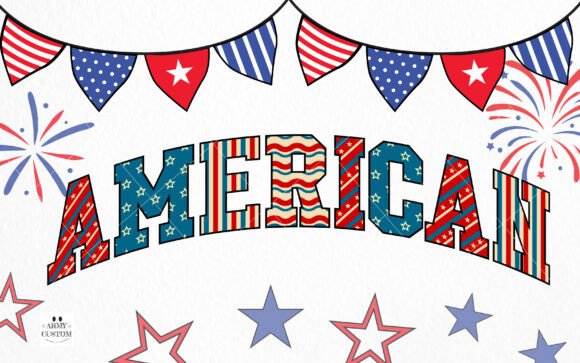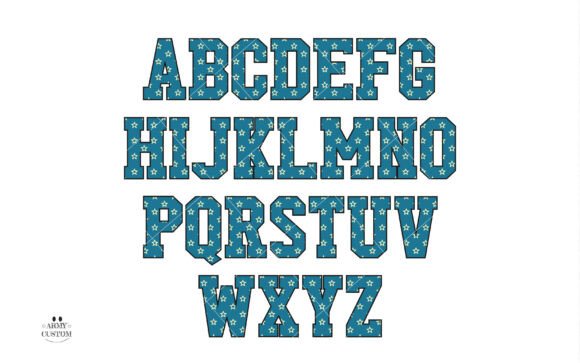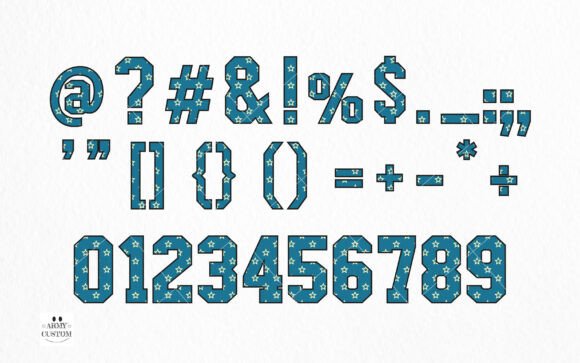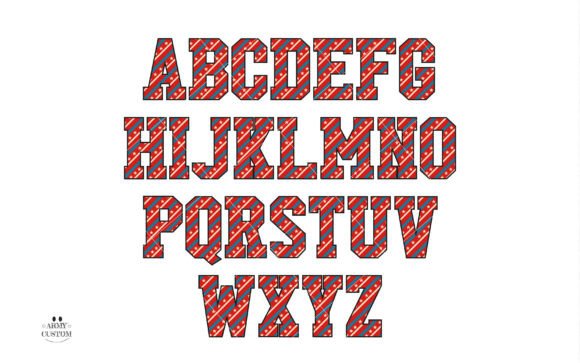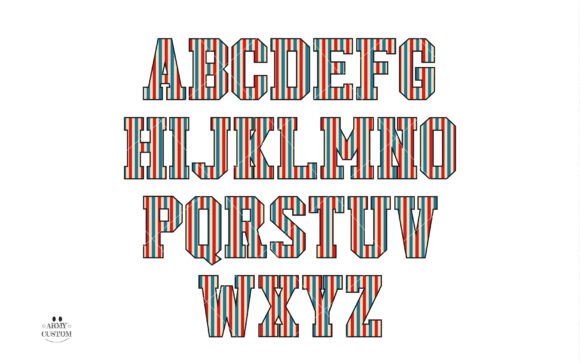
Experience American Patriotism with the American Vintage Bundle Font
As Independence Day approaches, the air is filled with the spirit of American patriotism. What better way to express this feeling than through the art of typography? Introducing the American Vintage Bundle Font, a stunning collection of typefaces designed to capture the essence of American pride and celebration. In this article, we’ll dive into the features and benefits of this incredible font bundle, perfect for designers, crafters, and anyone looking to add a touch of patriotism to their projects.
Celebrate Independence Day with a Unique Font
The American Vintage Bundle Font is more than just a collection of letters; it’s an experience. Each stroke, every curve, and all the intricate details come together to evoke the warmth and joy of American patriotism. Whether you’re designing a logo, creating greeting cards, or crafting decorations for the 4th of July, this font bundle is the perfect tool to convey the festive spirit.
What Makes the American Vintage Bundle Font Special?
• Patriotic Design: The font is meticulously designed to reflect American patriotism, making it ideal for Independence Day and other national celebrations.
• Versatility: Use it for various design projects, from digital graphics to physical crafts, that require a personal touch of American pride.
Tips for Getting the Most Out of the American Vintage Bundle Font
To truly make your designs pop, consider these tips:
• Experiment with Colors: While the color version of the font offers a vibrant palette, don’t be afraid to try different colors in your designs.
• Mix and Match: Combine the American Vintage Bundle Font with other fonts for a unique look.
• Play with Sizes: The font’s design looks great in various sizes, from large banners to small decals.
The American Vintage Bundle Font is more than just a font; it’s a way to express national pride and festive cheer in your designs. Whether you’re a designer looking for a unique touch for your client’s projects or a crafter aiming to create personalized patriotic decorations, this font bundle is an invaluable resource. With its compatibility across various platforms and its striking design, it’s the perfect addition to your typography arsenal. Celebrate Independence Day and beyond with a font that truly speaks to the heart of American patriotism.